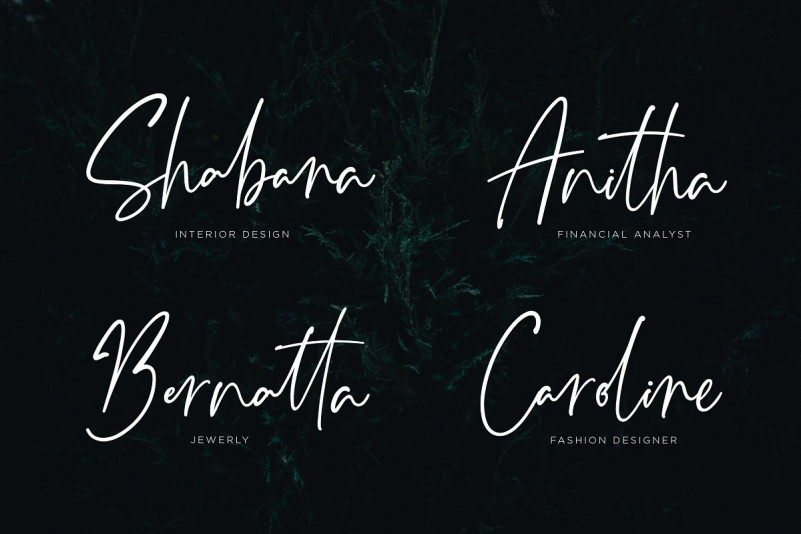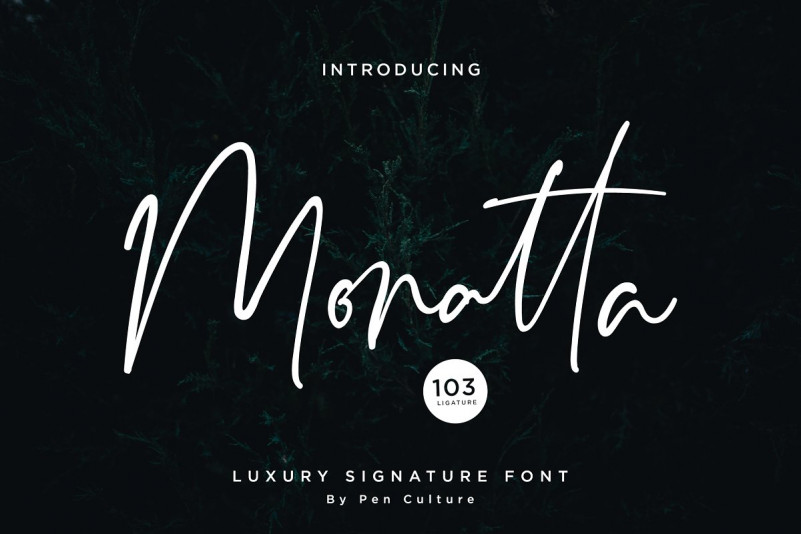
Monatta Signature Font
Monatta Signature Demo Font
A luxury signature font. Give your designs an authentic handcrafted feel. It’s great for (personal) branding, as the text is legible and is guaranteed to leave an impact. Introducing Monatta Signature Font. Created carefully with specific OpenType features include all caps, multilingual support (including currency symbols), 94 ligatures, standard numbers, and many others. this font perfect for any purpose, and very easy to use.